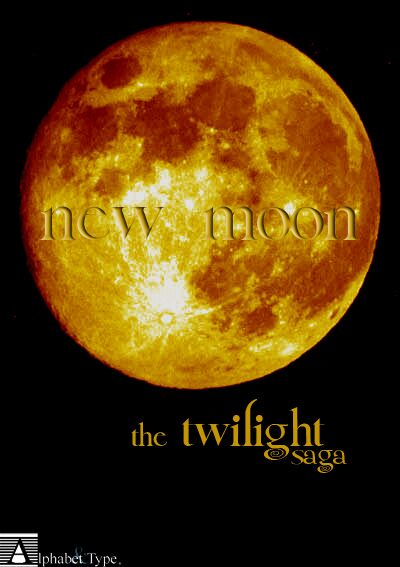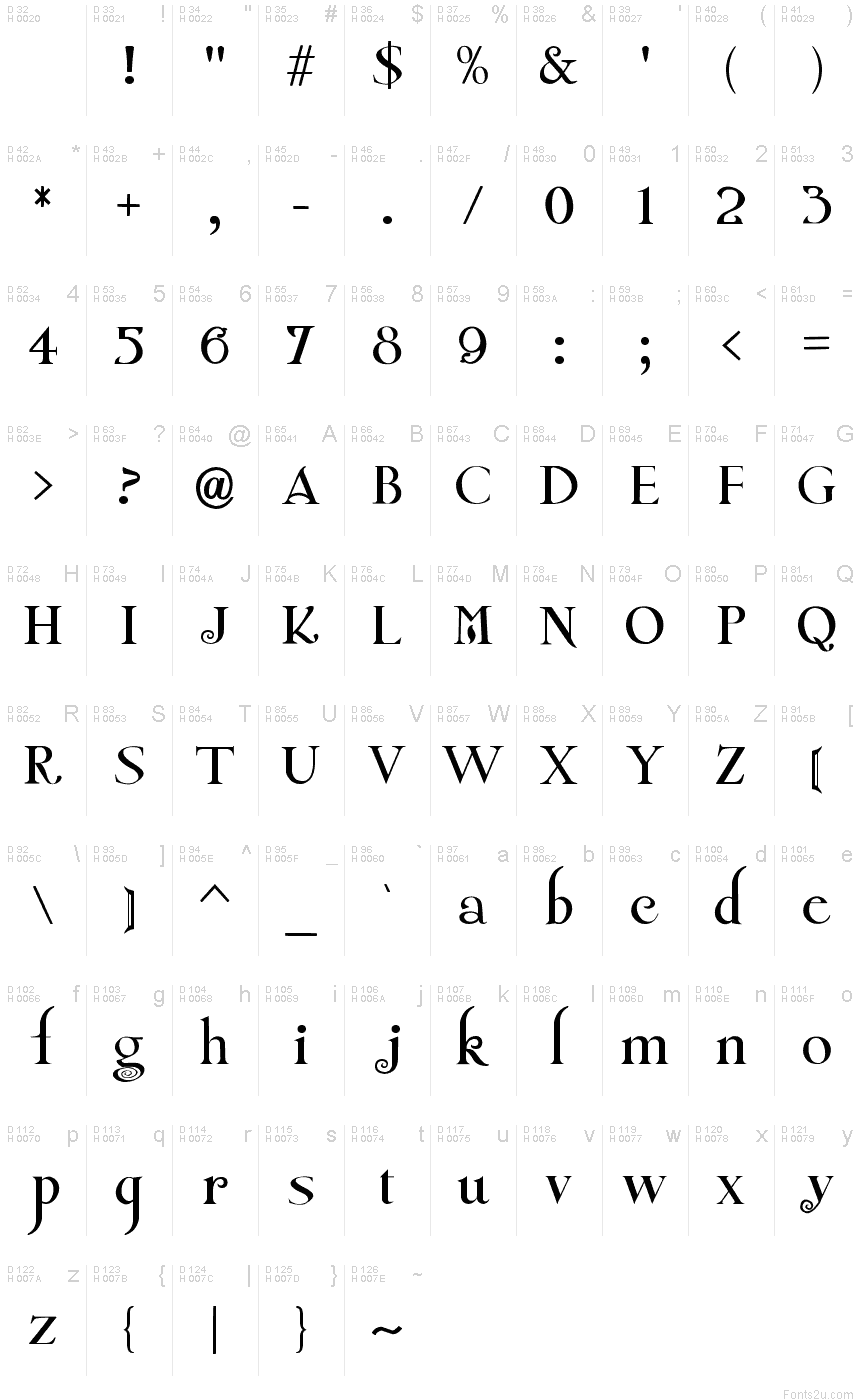
Twilight New Moon by P. A. Vannucci is a free decorative serif font with the poised drama of a fashion masthead. Its extremely fine hairlines, broad swelling curves, and blade-like serifs create a tall, theatrical silhouette, with several letters carrying unexpected cuts and hooked details.
Romance and nocturnal glamour are the clearest themes, making the font suitable for fragrance packaging and fashion campaigns. It also suits book covers and event posters. Across these uses, the sharply tailored shapes connect elegant subject matter with a slightly strange, gothic undercurrent that suits both print and advertising.
Twilight Saga font (New Moon), based on Stephenie Meyer’s work.